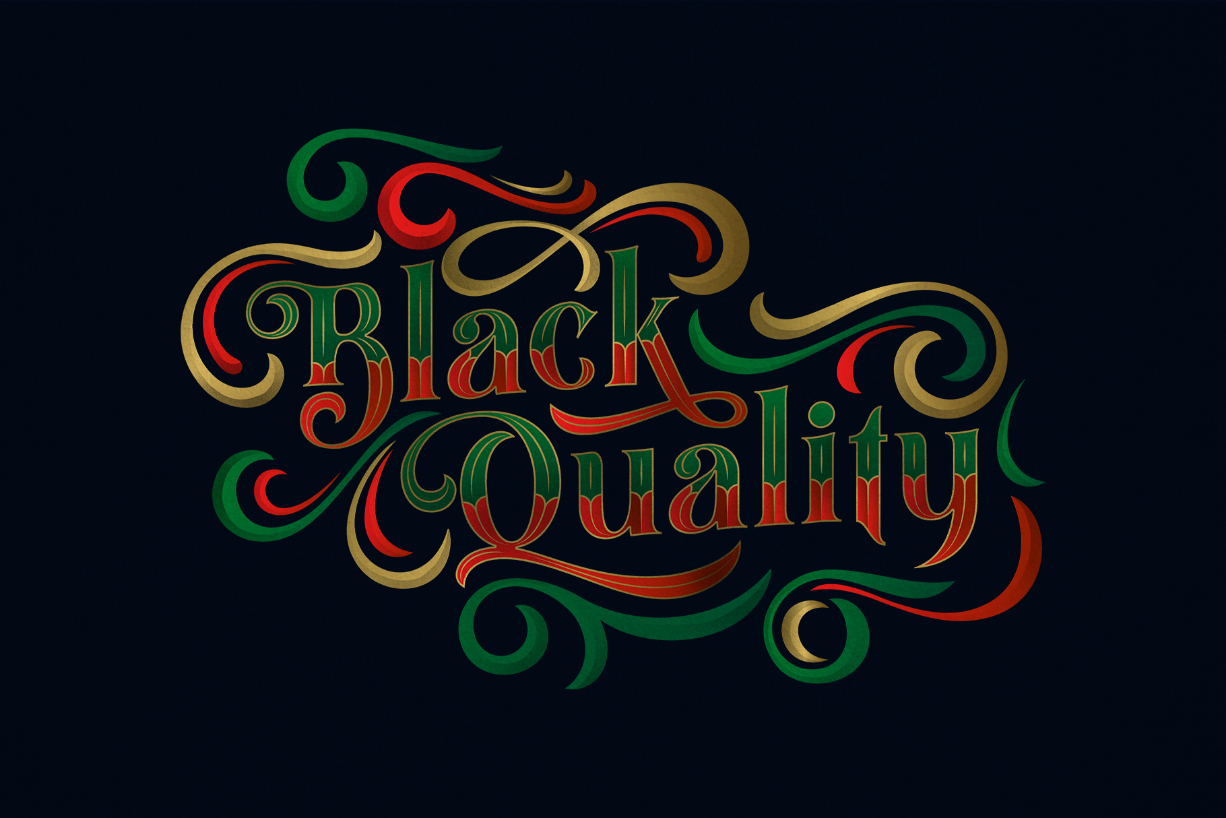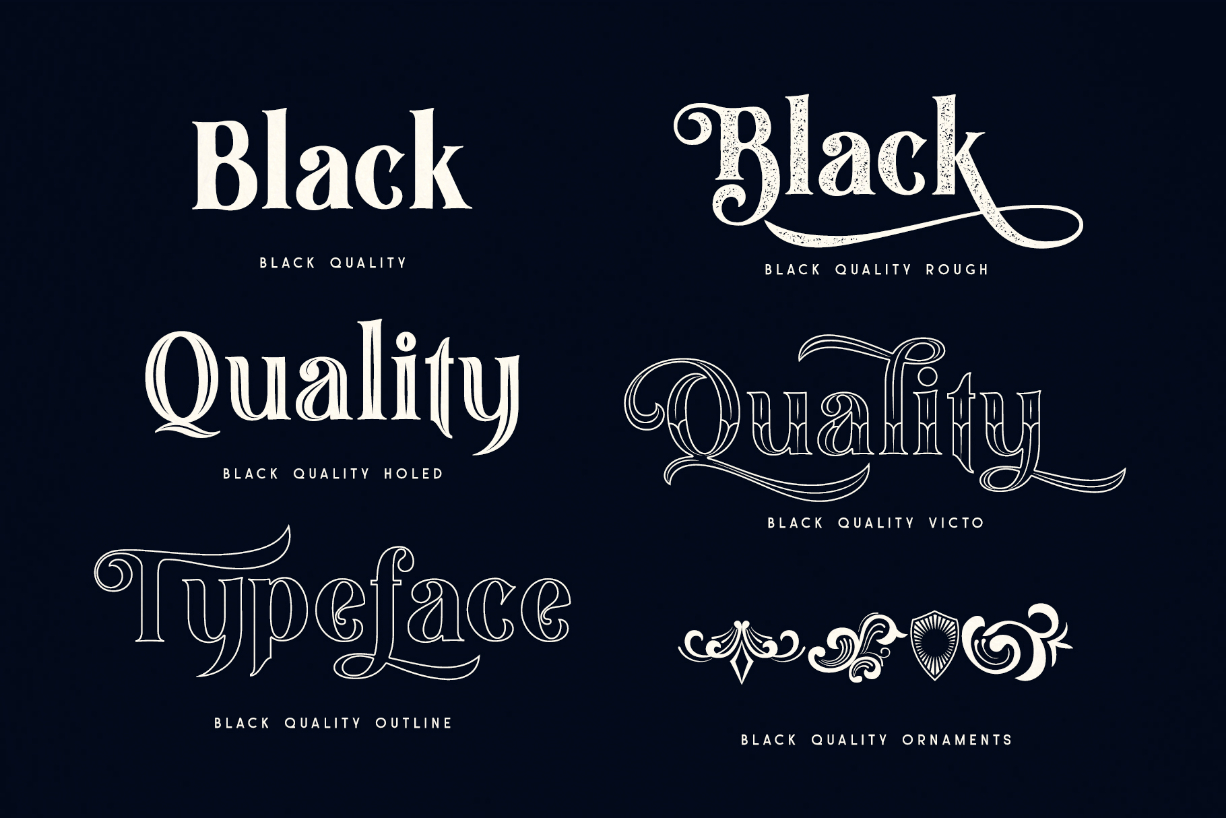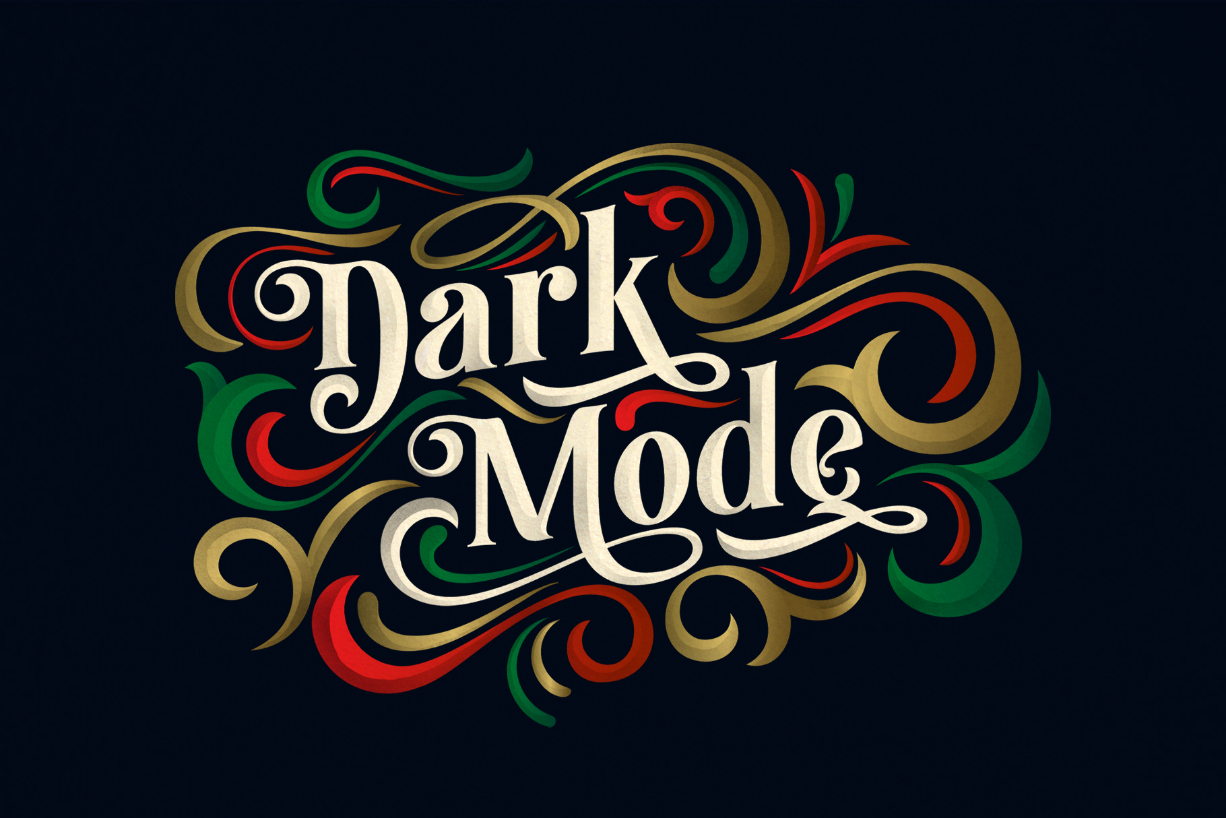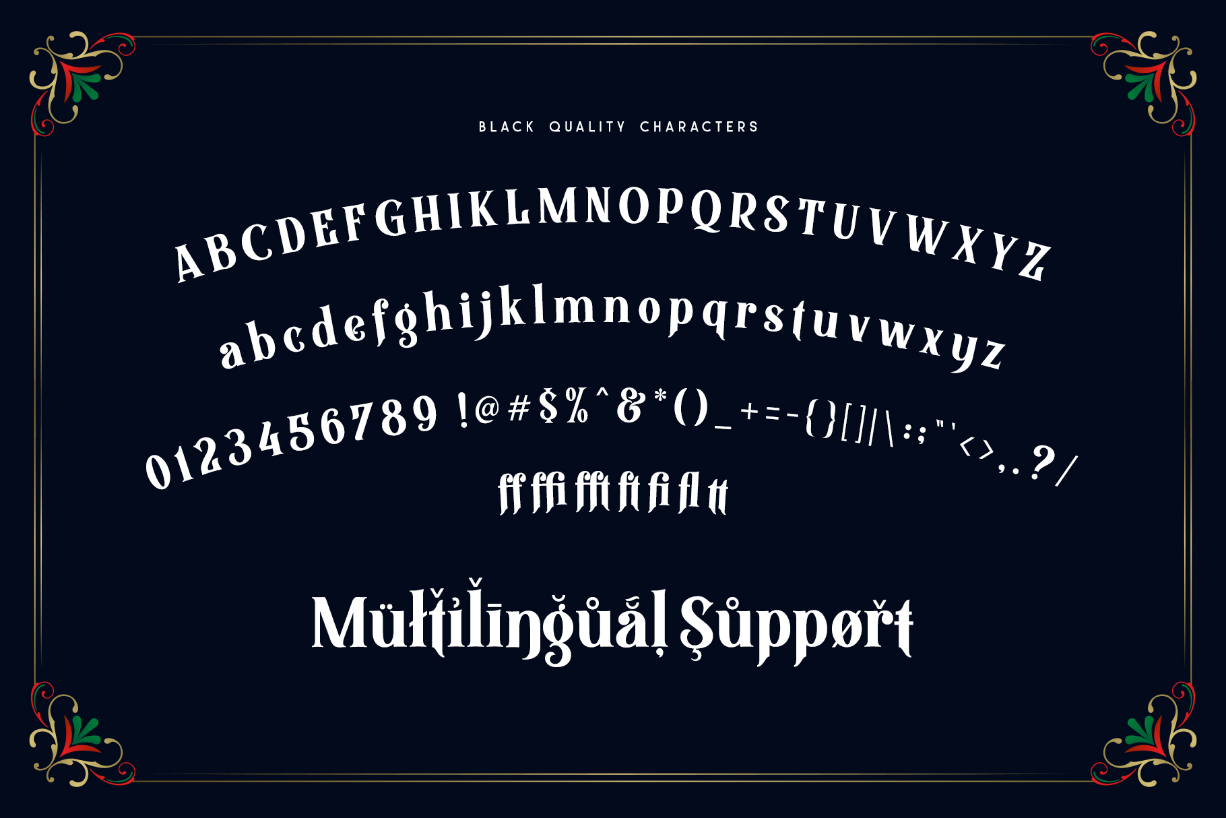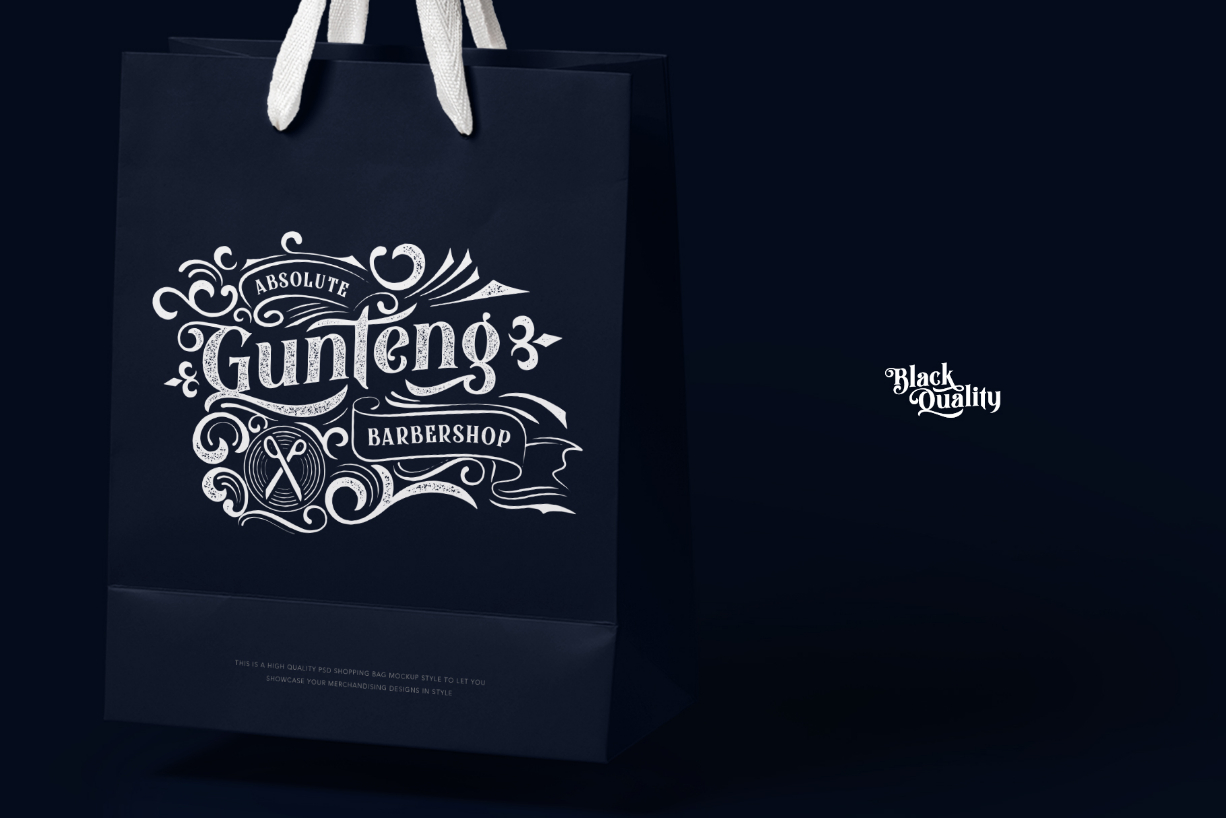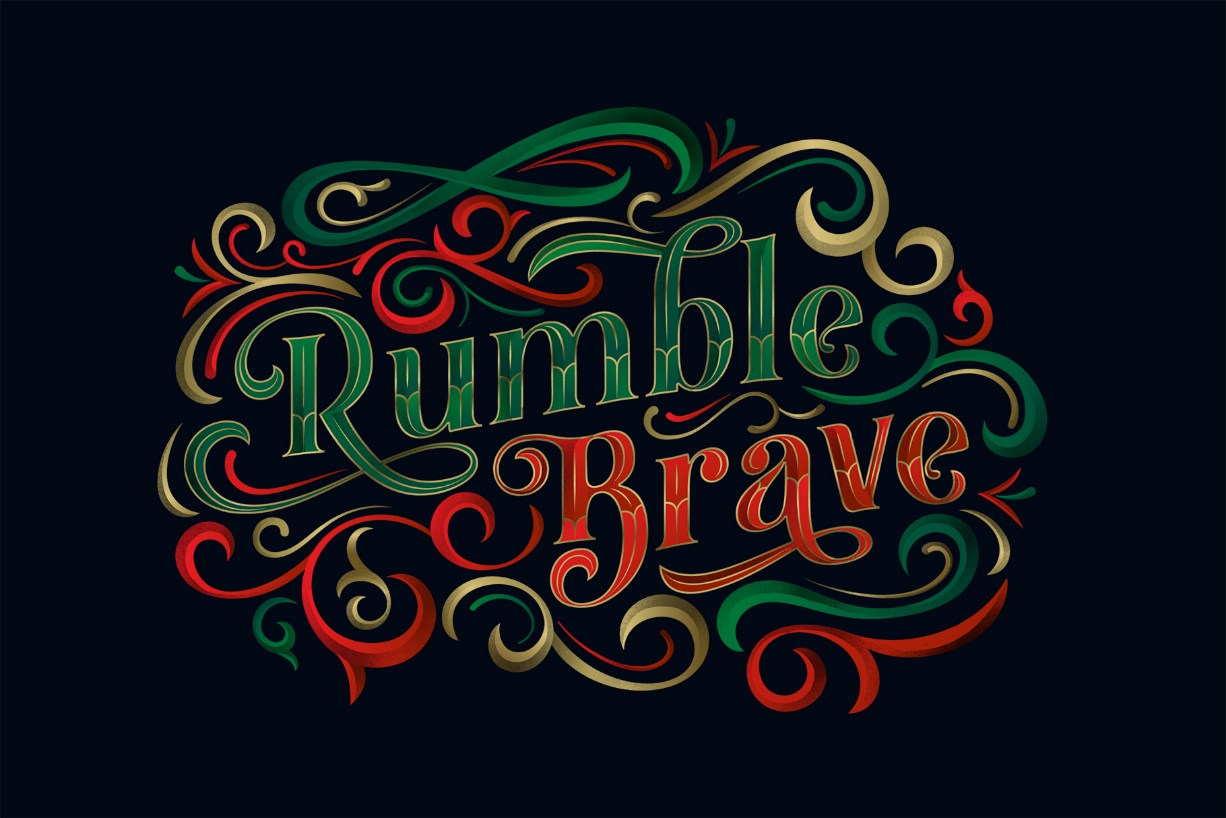
Black Quality Font
About Black Quality Font
Black Quality is a stunning blackletter font that will add a unique style to any design idea. Get inspired by its bold ornaments!